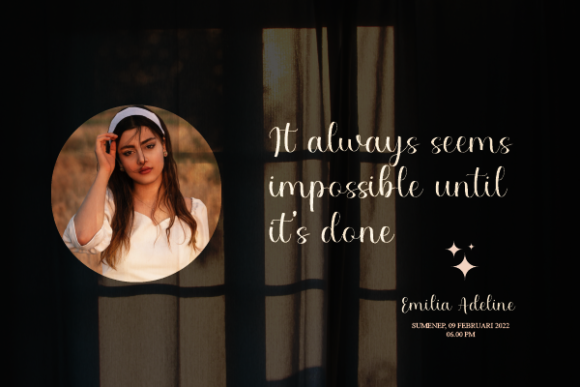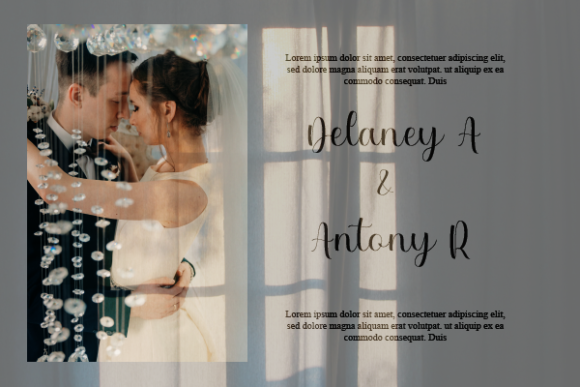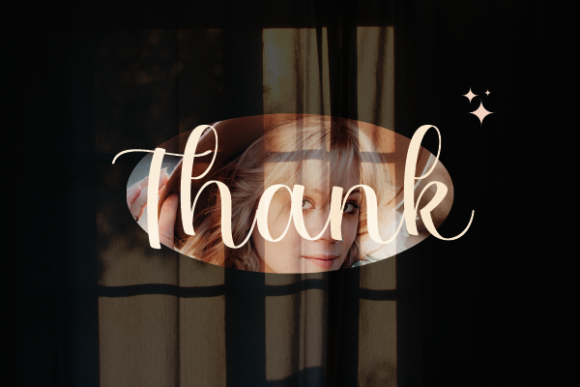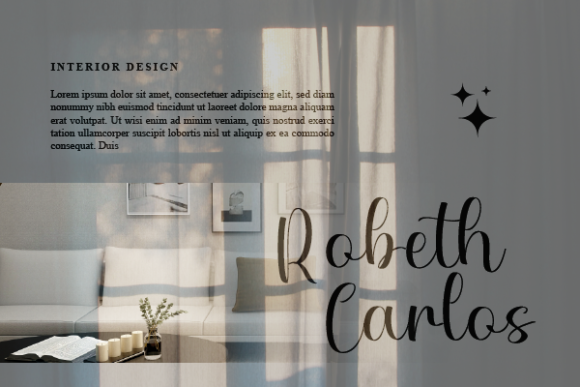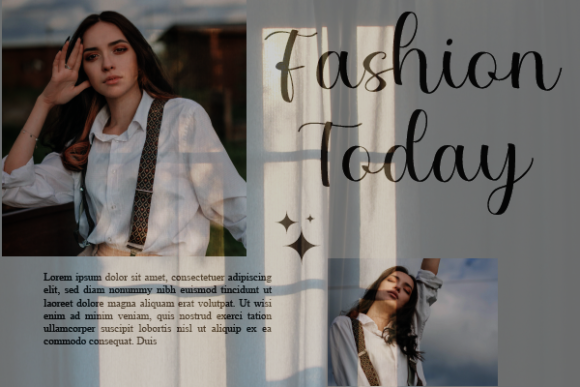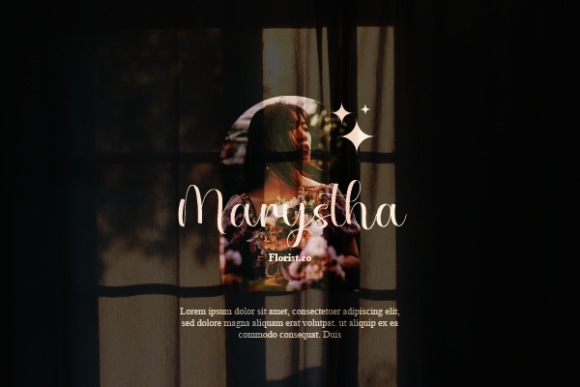
Griffin Simeon Font
About Griffin Simeon Font
Griffin Simeon is a trendy and stylish script font. It looks stunning on wedding invitations, thank you cards, quotes, greeting cards, logos, business cards and every other design which needs a handwritten touch.